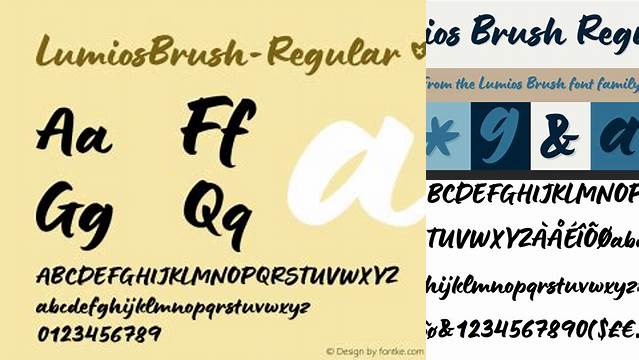
Are you looking to add a touch of hand-lettered charm to your projects? The Lumios Brush Regular font might just be what you need! This font is known for its natural, flowing strokes, giving your text a personal and artistic feel. In this article, we'll dive into everything you need to know about the Lumios Brush Regular font, including where you can find free TTF downloads and how to use it effectively in your designs.
What is Lumios Brush Regular Font?
Lumios Brush Regular font is a typeface designed to mimic the look of hand-lettered brushstrokes. Its irregular edges and varying thicknesses give it a unique, organic quality that stands out from typical digital fonts. This makes it a popular choice for projects that aim to convey authenticity, creativity, and a personal touch. Think of it as adding a handwritten signature to your digital work!
Key Features of Lumios Brush Regular
- Natural Appearance: The fontâs design closely resembles actual brush lettering, making it ideal for projects where you want to avoid a sterile, computer-generated look.
- Versatility: While it excels in artistic and informal contexts, Lumios Brush Regular can also be used sparingly in more formal designs to add a hint of personality.
- Readability: Despite its artistic flair, the font maintains good readability, ensuring your message is clear and easily understood.
Design Applications
Lumios Brush Regular can be used in many creative projects, such as:
- Logos and Branding: It adds a personal touch to logos, making your brand more relatable.
- Invitations and Cards: Perfect for creating custom wedding invitations, birthday cards, and thank you notes.
- Social Media Graphics: Use it to make your social media posts stand out with a handcrafted feel.
- Website Headers: Incorporate it into your website headers for a unique and engaging look.
- Print Materials: From posters to flyers, Lumios Brush Regular adds an artistic touch to your print designs.
Using Lumios Brush Regular Effectively
Best Practices
- Pairing with Other Fonts: Lumios Brush Regular works well when paired with simple, clean sans-serif fonts. This contrast helps to balance the artistic flair of the brush font with readability.
- Limit Usage: Avoid using Lumios Brush Regular for large blocks of text. Its unique style is best used for headlines, titles, and short phrases.
- Consider Kerning and Tracking: Adjust the kerning (space between individual letters) and tracking (overall spacing) to ensure the font looks balanced and readable.